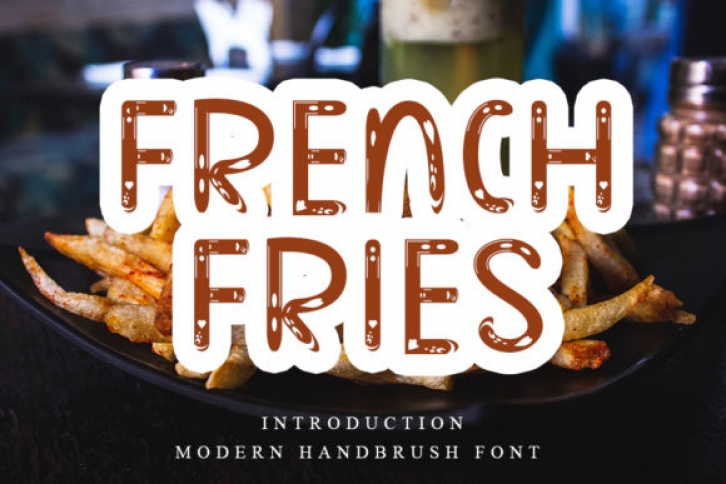
French Fries is a modern styled display font. It is suitable for creating any branding, product packaging, invitation, quote, t-shirt, label, poster, logo that you wish to develop.